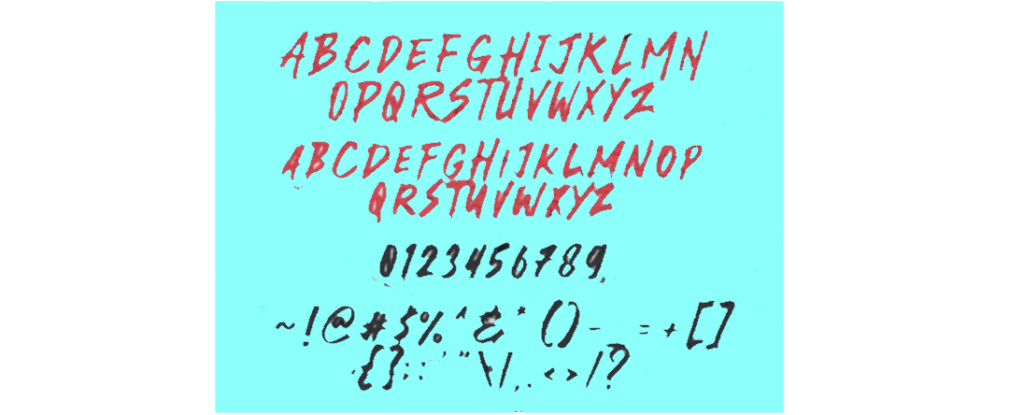
Brat font brings a touch of 70s and 80s nostalgia to modern designs, making it perfect for logo creation, websites, or social media graphics. It captures a retro vibe while still offering the functionality and clarity needed for today’s creative projects, making it a versatile choice for adding personality and flair.
Brat Font is good for any contemporary piece that requires a distinctive touch, be it for nonconformity or pure sophistication.
It’s bold and inviting, making it a go-to choice for designers who want to bring personality to their projects.
The Brat font is an active brush font, bold in style but having minor distressed details for added aesthetics to the artwork. This particular design improves its usage in very many circumstances ranging from flashy posters, websites, and logos to flyers. The Brat font comes with capital and small letters, numbers, and basic punctuation, which enables designers to secure great versatility in the composition.
Its low brow, rough, and hand-painted style adds a lot of creativity and dynamics to the composition which makes it even more appealing for contemporary designs.
In conclusion, Brat Font offers a bold and dynamic style that brings character and energy to modern design projects. For anyone looking to make a statement with their typography, Brat Font is an excellent blend of personality and functionality.